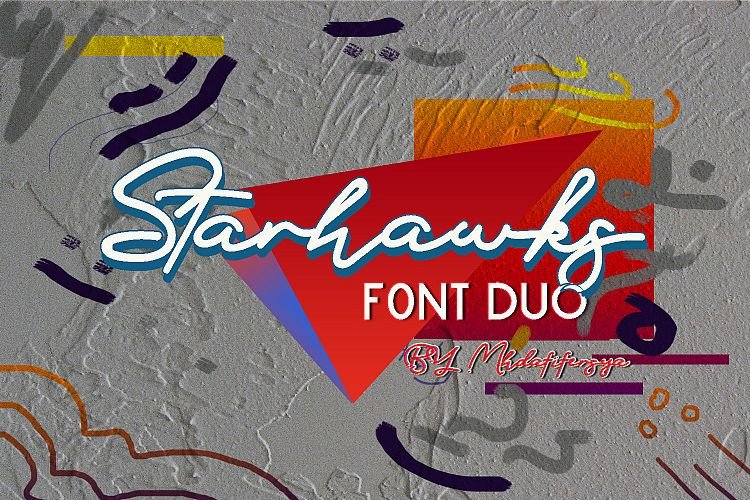
Starhawks Font Duo
This is a new font duo by Mhdafifersya. A combination of bright fonts with scripts and sans for the summer. Introducing Starhawks Font. This duo font is also the best decision for those creatives who want to design own visual identity but don’t have a great experience in designing. Starhawks is perfectly suited to signature, stationery, logo, typography quotes, magazine or book cover, website header, clothing, branding, packaging design and more.